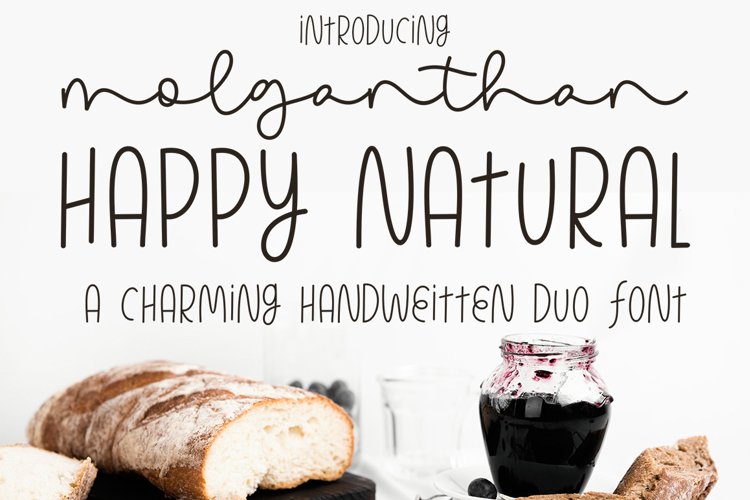
Happy Natural - molgantha Script is a bouncy handwritten script font!
This font is perfect for quotes, shirt designs, websites, branding, children's designs, blogs, logos, invitations and more!